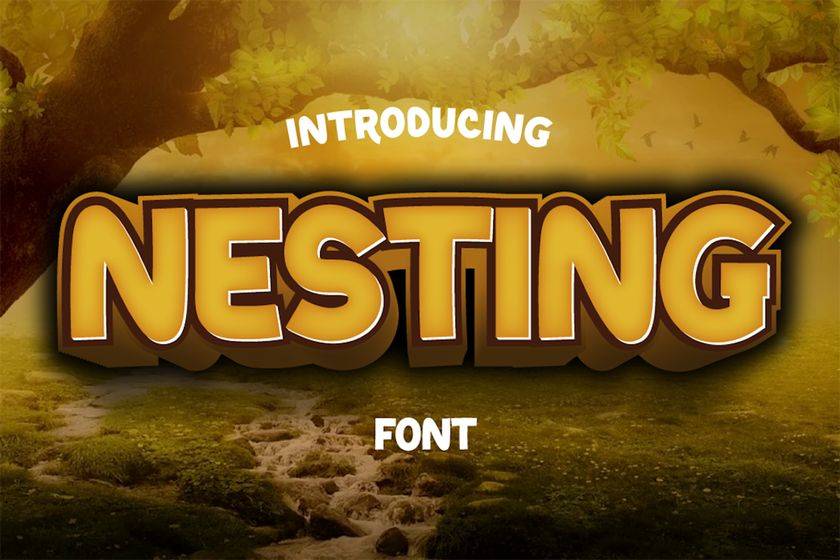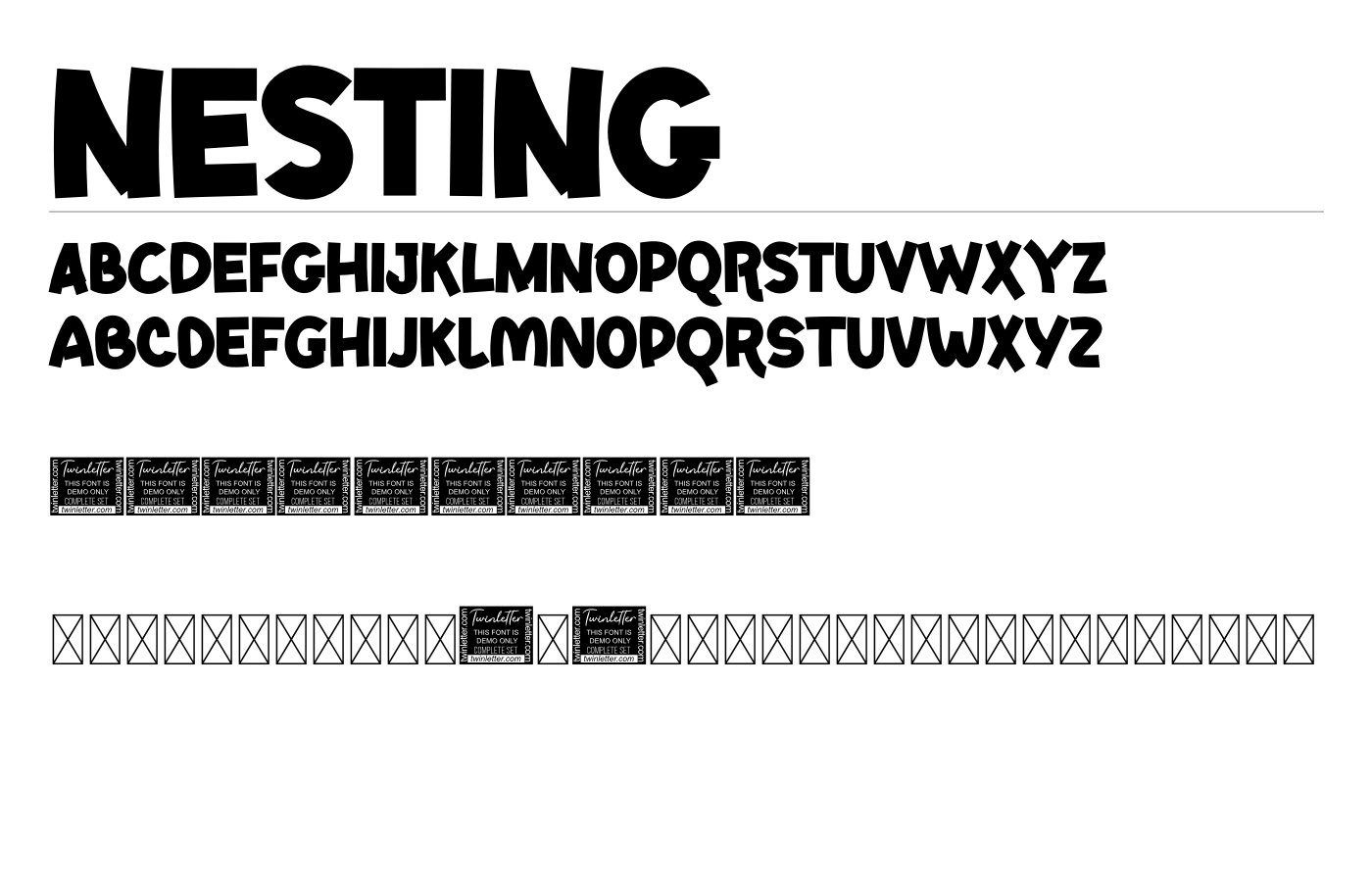
Nesting Font is a bold, playful sans serif typeface with a slightly irregular, hand-crafted look that adds character and charm to any design. Its thick strokes and lively letterforms make it perfect for fun, casual branding, children’s materials, posters, and headlines where a friendly and approachable vibe is desired. The font's distinct style grabs attention while remaining easy to read, making it great for creative and informal projects.
Nesting Font
About Nesting Font
| Font family | Nesting Font |
| Designer | ROZI |